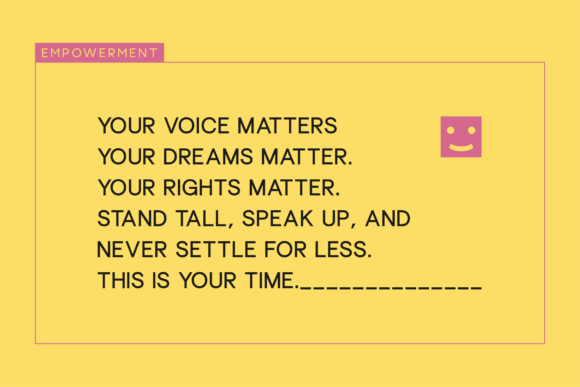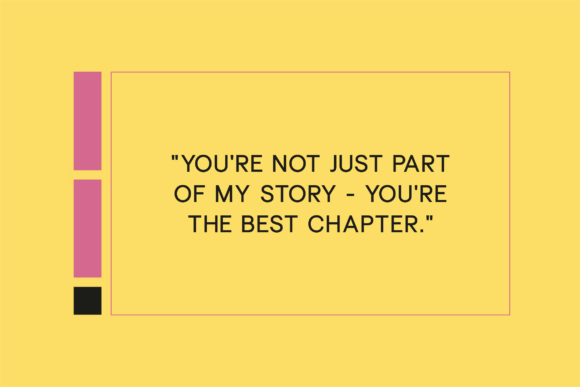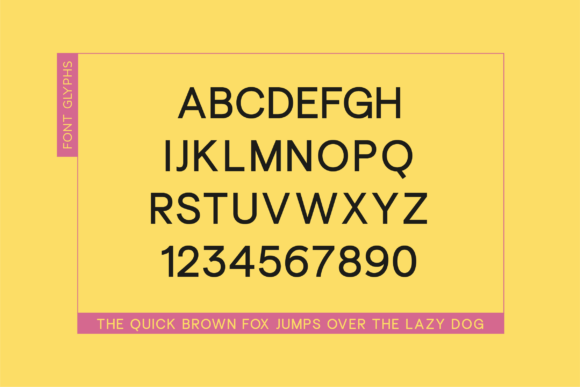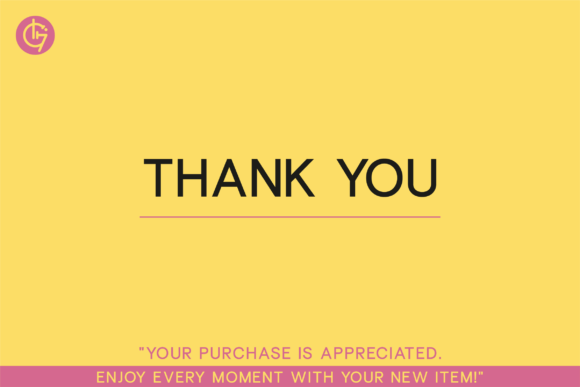
Introducing Gemstone – A Modern Sans Serif Typeface
In the world of design, typography plays a crucial role in conveying messages, expressing creativity, and building brand identities. For designers and crafters looking for a font that embodies modernity, strength, and professionalism, Gemstone is an exceptional choice. This bold, all-caps sans serif typeface is specifically designed to make a statement, offering a perfect blend of aesthetics and functionality.
Design and Aesthetic
Gemstone boasts a clean and minimalist design, characterized by its sharp, crisp edges and strong, geometric structure. This modern sans serif font is meticulously crafted to exude strength and authority, making it ideal for projects that demand a professional and impactful look. The all-caps design ensures clarity and readability, which are crucial for effective communication in design.
- All-caps design for maximum impact: The all-caps design of Gemstone ensures that your message stands out, whether it’s used for headlines, posters, or any other design element that requires emphasis.
- Modern, minimalist style with a focus on readability: The clean lines and simple structure of Gemstone enhance readability, making it suitable for both large-scale headlines and smaller text blocks.
- Bold, clean lines for a confident and professional look: The boldness of Gemstone gives it a confident and professional appearance, perfect for branding, logos, packaging, and digital design.
- Ideal for branding, logos, packaging, and digital design: Gemstone’s versatility makes it a valuable asset for various design projects, from high-end branding to digital interfaces.
- Perfect for both large-scale headlines and smaller text blocks: The font’s design ensures it remains legible and impactful, whether used in large headlines or smaller text blocks.
Versatility and Application
Gemstone’s strong, geometric structure and modern aesthetic make it incredibly versatile. It’s perfect for a wide range of applications, including:
- Branding and Logos: Create a lasting impression with a bold and professional logo that stands out.
- Digital Design: Enhance your website, app, or digital platform with a font that communicates strength and modernity.
- Print Material: Elevate your print designs, such as brochures, posters, and business cards, with a font that exudes professionalism.
- Packaging: Make your product packaging stand out on the shelves with Gemstone’s bold and clean aesthetic.
Why Choose Gemstone?
For brands, agencies, and designers, Gemstone offers a unique combination of modernity, readability, and impact. Here are a few reasons why Gemstone should be your go-to font:
- Professionalism: Gemstone’s design is synonymous with professionalism, making it perfect for projects that require a sophisticated look.
- Versatility: Its adaptability across various mediums and applications makes Gemstone a valuable asset for any designer.
- Readability: The font’s clean lines and all-caps design ensure that your message is conveyed clearly and effectively.
Gemstone is more than just a font; it’s a design statement. With its modern sans serif aesthetic, bold lines, and all-caps design, it offers the perfect blend of style and functionality. Whether you’re a designer, brand, or agency looking for a typeface that embodies professionalism and impact, Gemstone is an excellent choice. Elevate your designs with a font that is sure to make a statement.